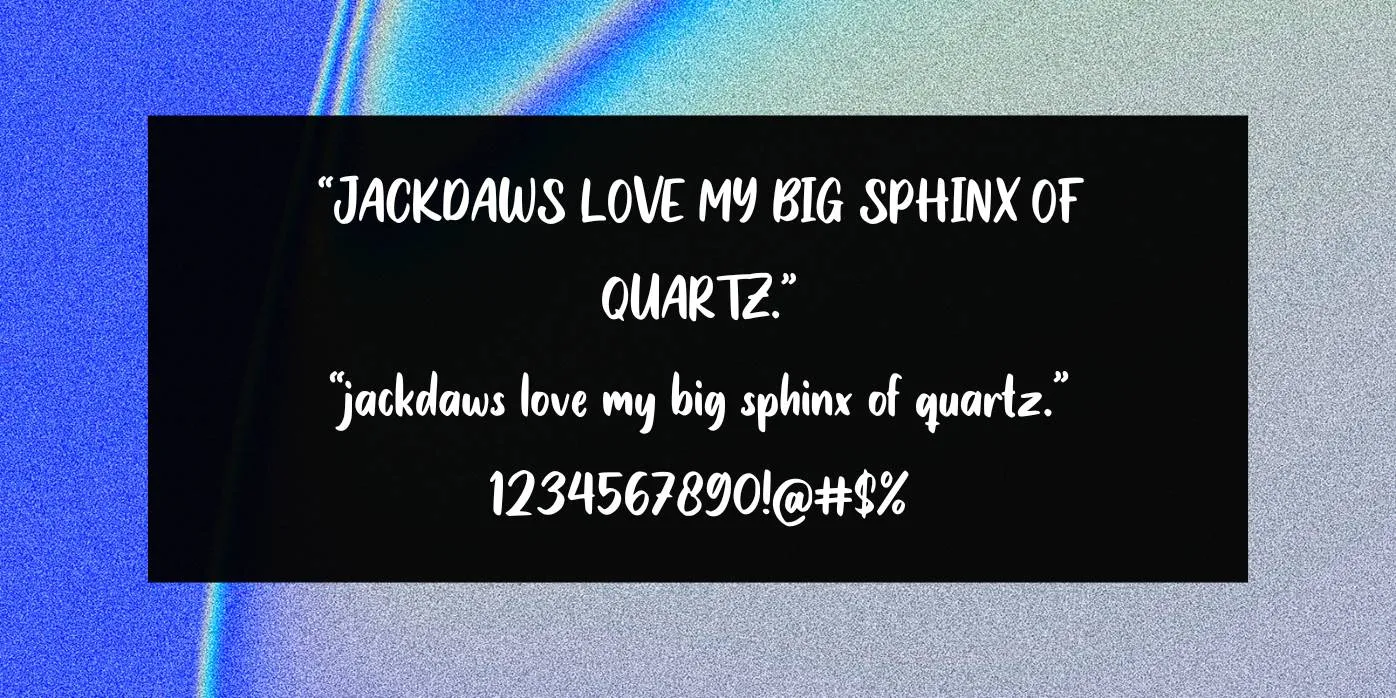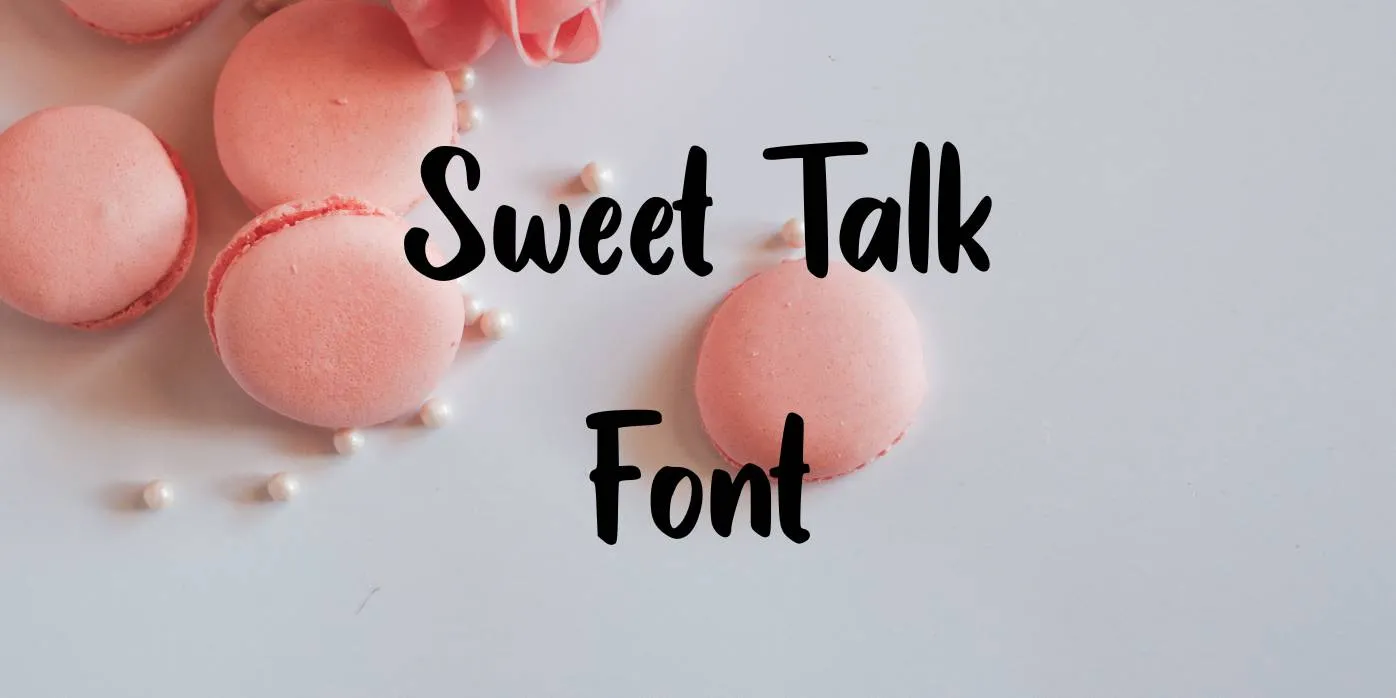
Sweet Talk Font
Sweet Talk Font is a handwritten type of font. This is a fantastic typeface with a lot of use. FatmaStudio is the designer of this stunning typeface. There are 348 amazing and stunning glyphs for this texture.